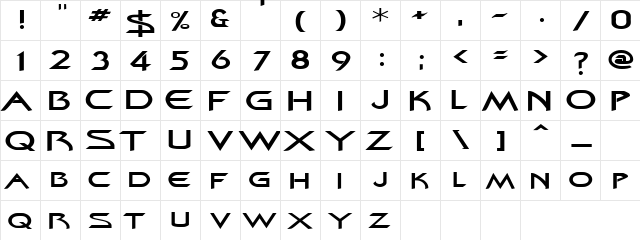
ZenonExtended Regular Font Preview
ZenonExtended Regular
ZenonExtended Regular Font Details
Design Context for ZenonExtended Typeface
ZenonExtended is a composed and adaptable typeface that performs quietly and consistently across a wide range of design contexts.